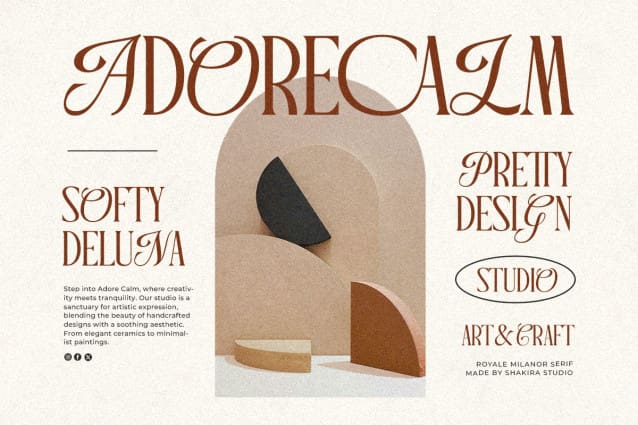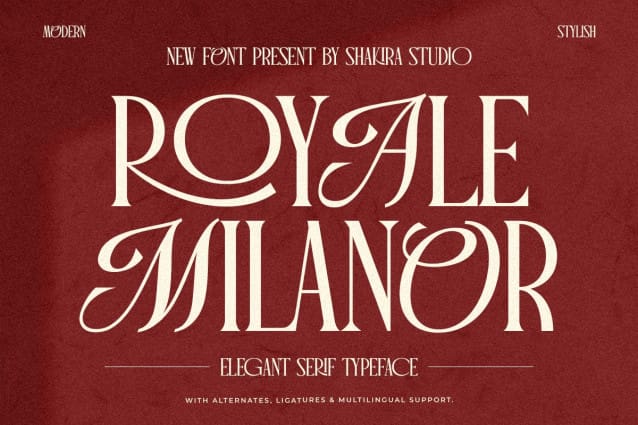
Royale Milanor Font
Royale Milanor is a sophisticated serif typeface that embodies elegance and luxury. Designed with precision, this font offers a timeless aesthetic with a modern touch, making it perfect for high-end branding, fashion editorials, magazine layouts, and premium print materials.
Featuring alternates and ligatures, Royale Milanor allows for seamless customization, giving designers creative freedom to craft unique and stylish typography. Whether for logos, wedding invitations, or advertising, this font enhances every project with its refined details and exquisite character.
Unlock the power of classic sophistication with Royale Milanor, a font designed to elevate your creative vision with grace and style.